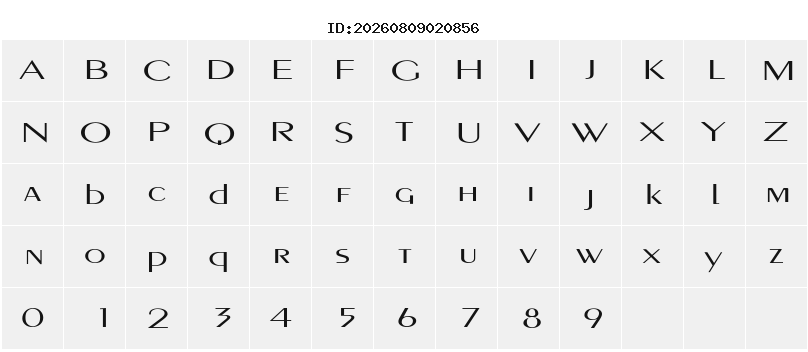
PigNoseTyp Preview
• Font Name: PigNoseTyp
• Full Font Name: PigNoseTyp
• PostScript Name: PigNoseTyp
About PigNoseTyp.ttf
PigNoseTyp.ttf is a modern, elegant sans-serif font designed for ultimate readability and visual harmony. Perfect for branding, headlines, web design, and print materials.